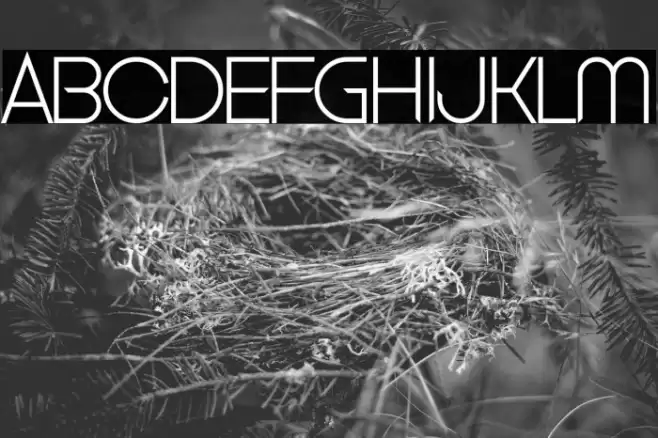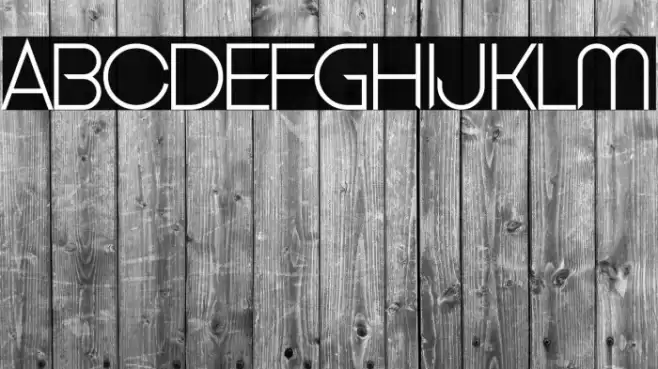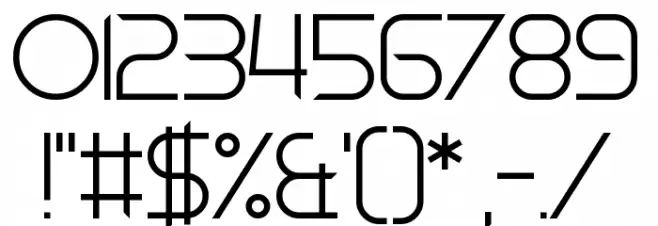
Clubbed to Life Font
Clubbed to Life Description
This font features a sleek, geometric design with clean lines and a modern aesthetic. The characters are constructed with a uniform stroke width, giving it a balanced and harmonious appearance. Its rounded edges and open counters contribute to a friendly and approachable feel, while maintaining a sense of sophistication. The uppercase letters are bold and assertive, while the lowercase letters offer a softer, more subtle touch. The numerals are consistent with the overall style, ensuring readability and visual appeal. Special characters are well-integrated, enhancing the font's versatility.
A modern, geometric font with clean lines and a balanced design from Uncategorized fonts.